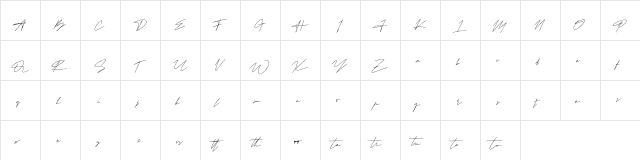
KattelaSignature Thin
Design Context for KattelaSignature Typeface
KattelaSignature is a composed and adaptable typeface that performs quietly and consistently across a wide range of design contexts. The delicate stroke weight brings airiness and refinement to layouts.